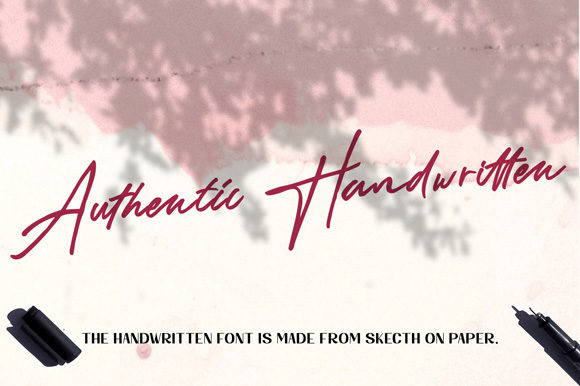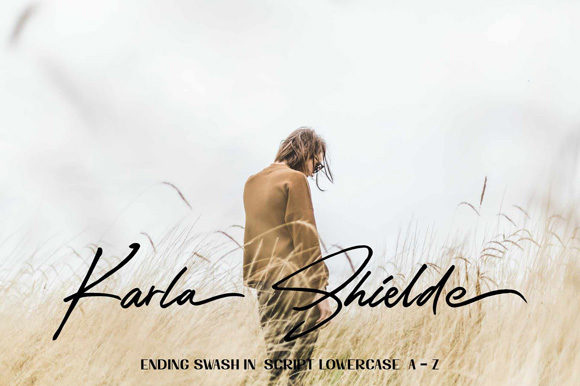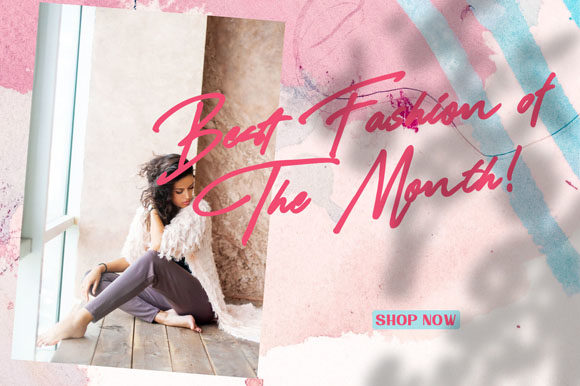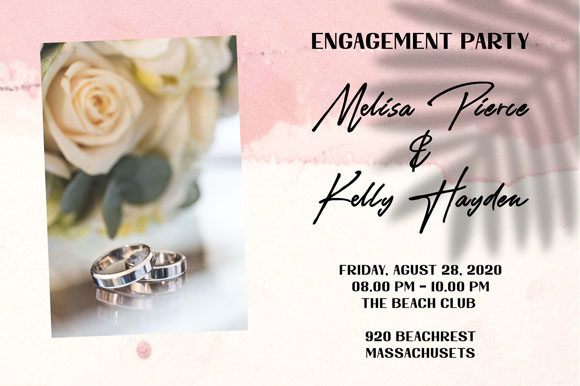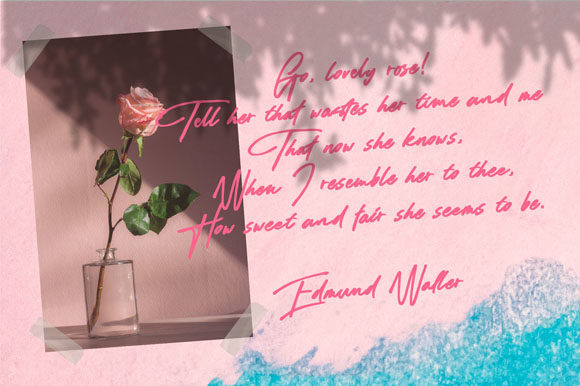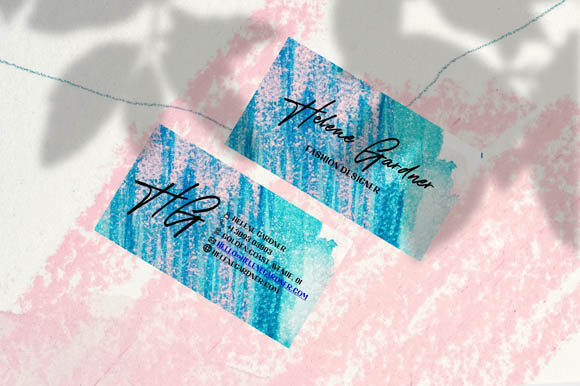
Introduction to Rose Flinch Font
Have you ever stared at a blank page, waiting for the perfect design to come to life? We’ve all been there. As designers, we know that the right font can make all the difference in elevating our creative project to new heights. That’s where the Rose Flinch Font comes in – a stunning duo font that combines the elegance of a sans serif with the flair of a script.
With its incredibly versatile design, the Rose Flinch Font is a valuable resource for any designer looking to add a touch of sophistication to their work. Whether you’re working on a logo, a website, or a social media campaign, this font is sure to make your design stand out. Plus, its transparent background makes it easy to use as a design element, adding an extra layer of creativity to your project.
Key Features of Rose Flinch Font
- Unique, hand-drawn design with a touch of elegance, perfect for creative projects that require a delicate look.
- Includes a range of uppercase and lowercase letters, numbers, and special characters, providing a comprehensive design resource.
- Supports multilingual typing, allowing designers to create content in various languages using the Rose Flinch Font.
Honest Review: Rose Flinch Font
As a designer, I’m always on the lookout for high-quality design resources to elevate my creative projects. The Rose Flinch Font caught my eye, and I decided to give it a try.
What works well: ✨ The Rose Flinch Font is incredibly versatile and can be used for a variety of creative projects, from graphic design to digital art. The font is also incredibly customizable, allowing for seamless integration with transparent backgrounds and other design elements.
What I appreciate about this font is its unique blend of elegance and playfulness, making it perfect for designers who want to add a touch of whimsy to their work. The free download option is also a huge plus, as it allows designers to test the font without committing to a purchase.
Overall, I’m impressed with the Rose Flinch Font and would recommend it to designers who are looking for a unique and customizable font for their creative projects.
- Customizable and versatile
- Perfect for graphic design and digital art
Rose Flinch Font is a versatile design resource that can be used in a variety of creative projects, including social media graphics, blog posts, and marketing materials. Its unique style and high-quality design make it an ideal choice for designers looking to add a touch of elegance to their work.